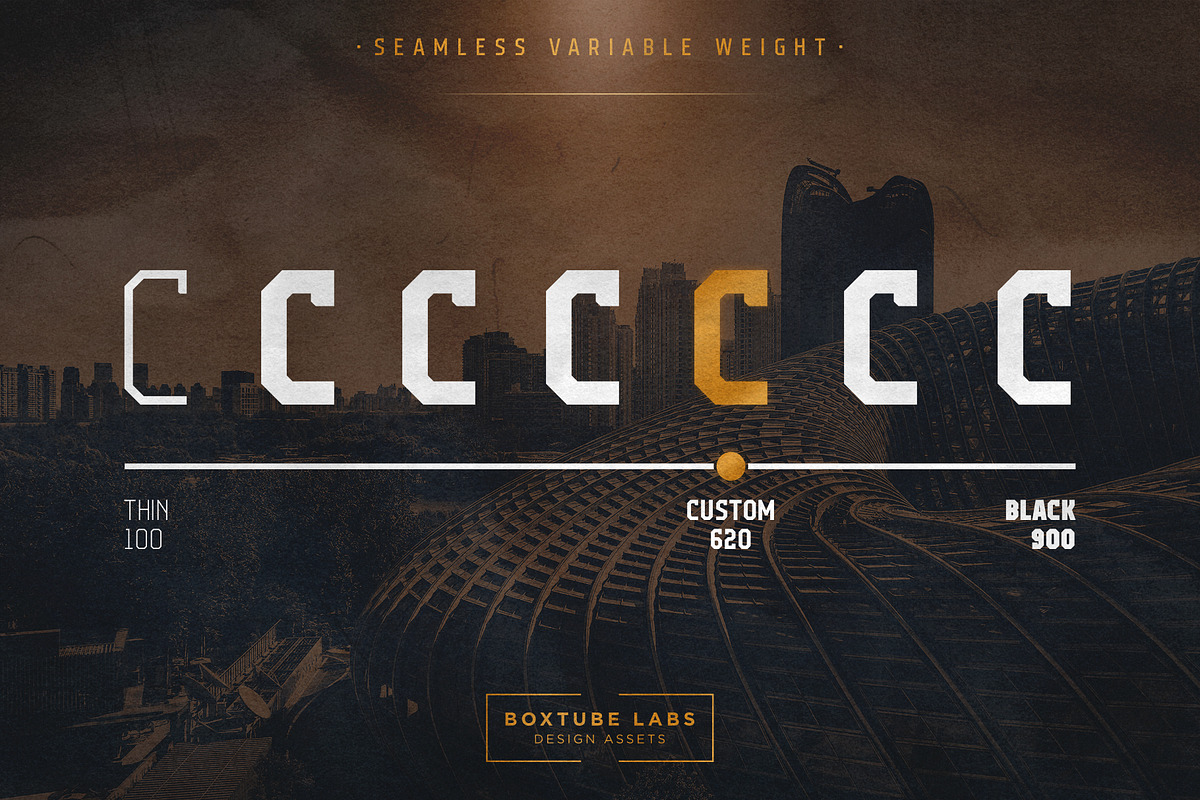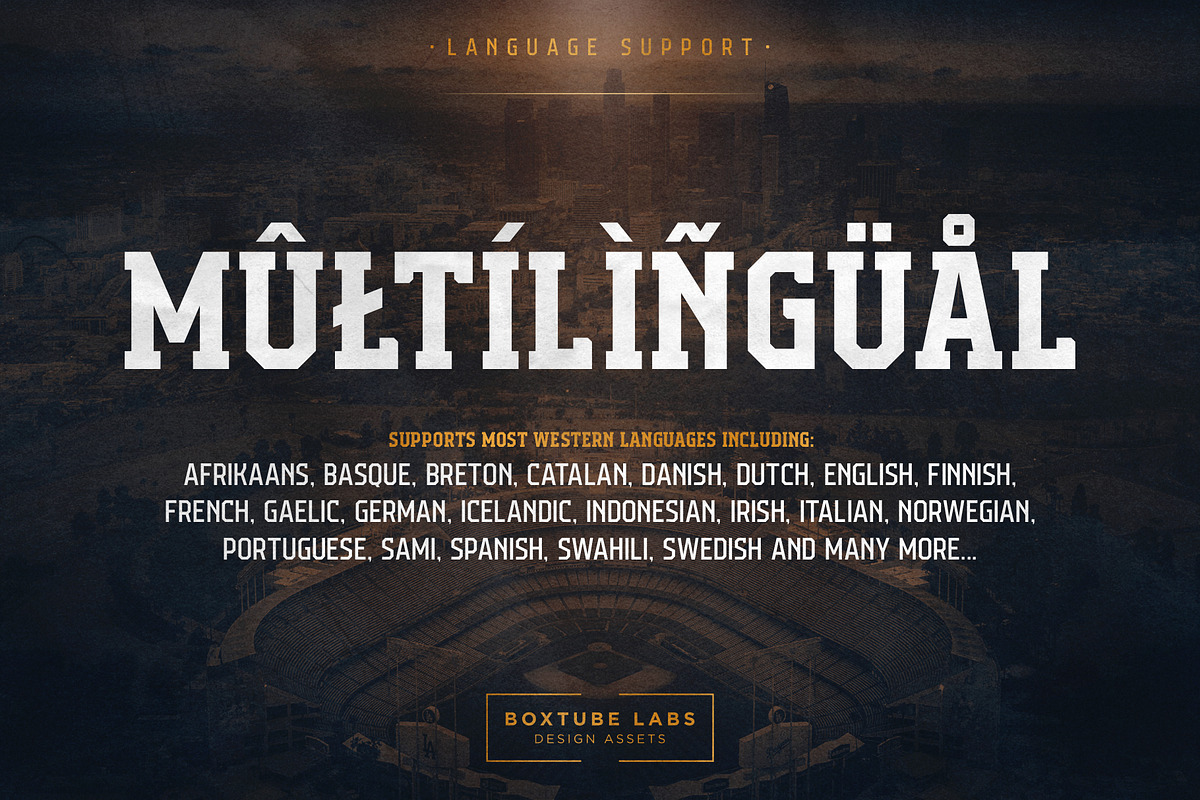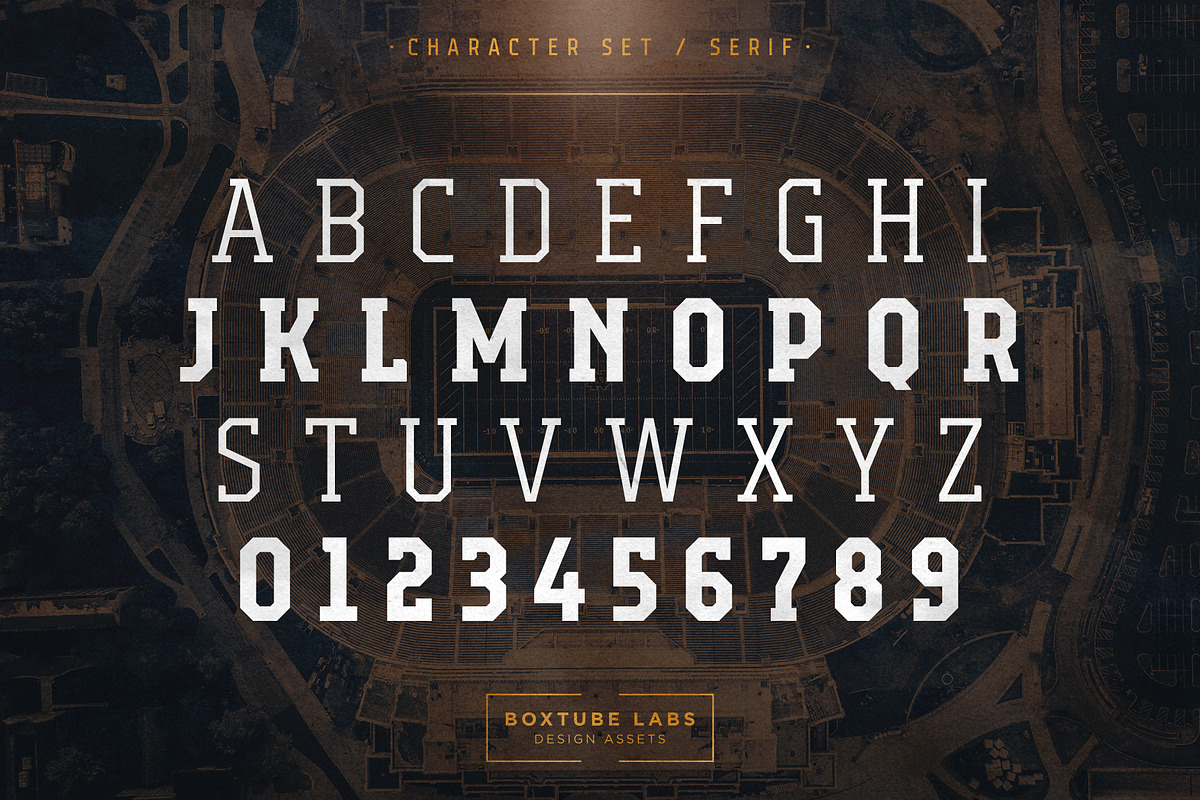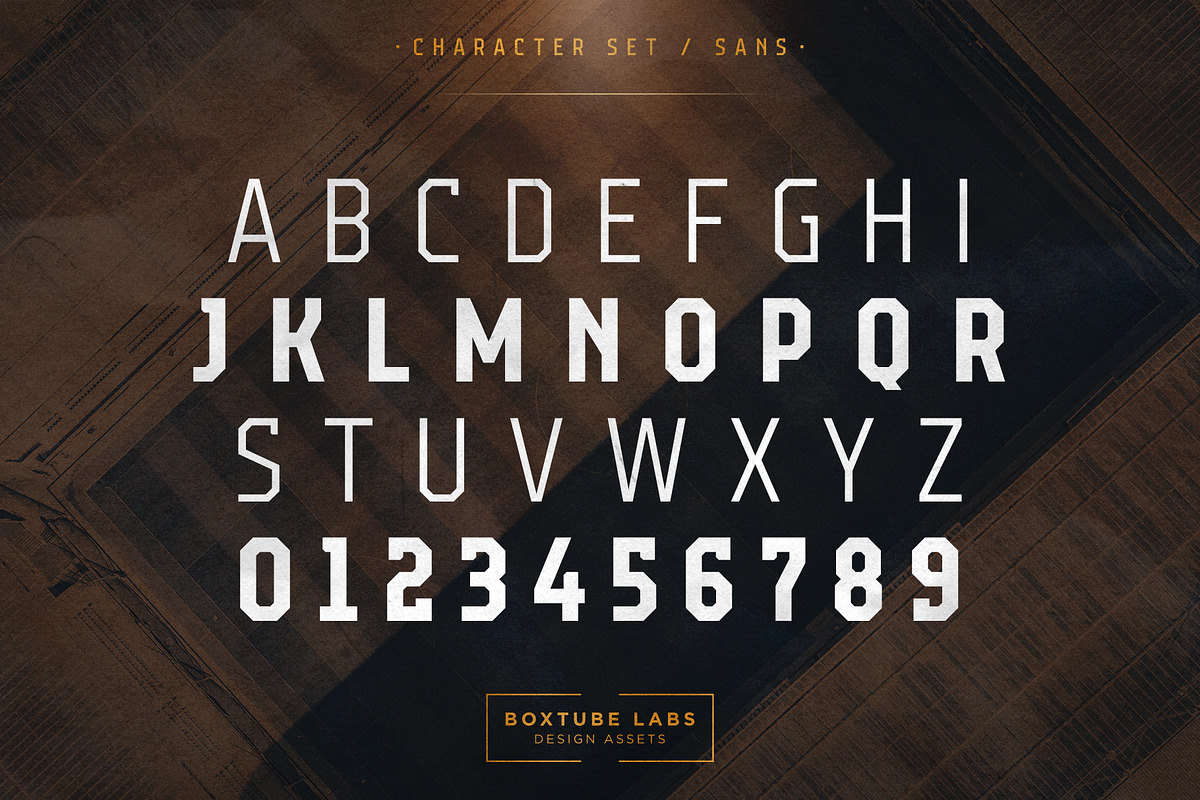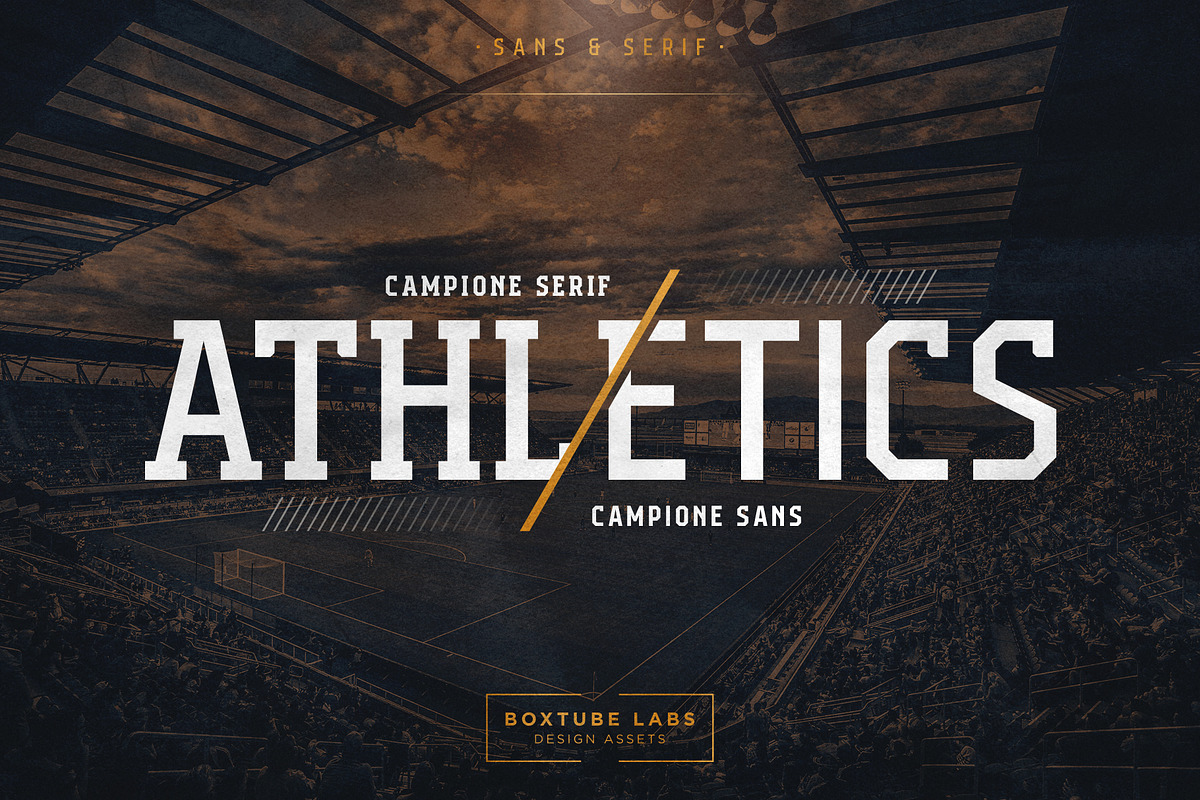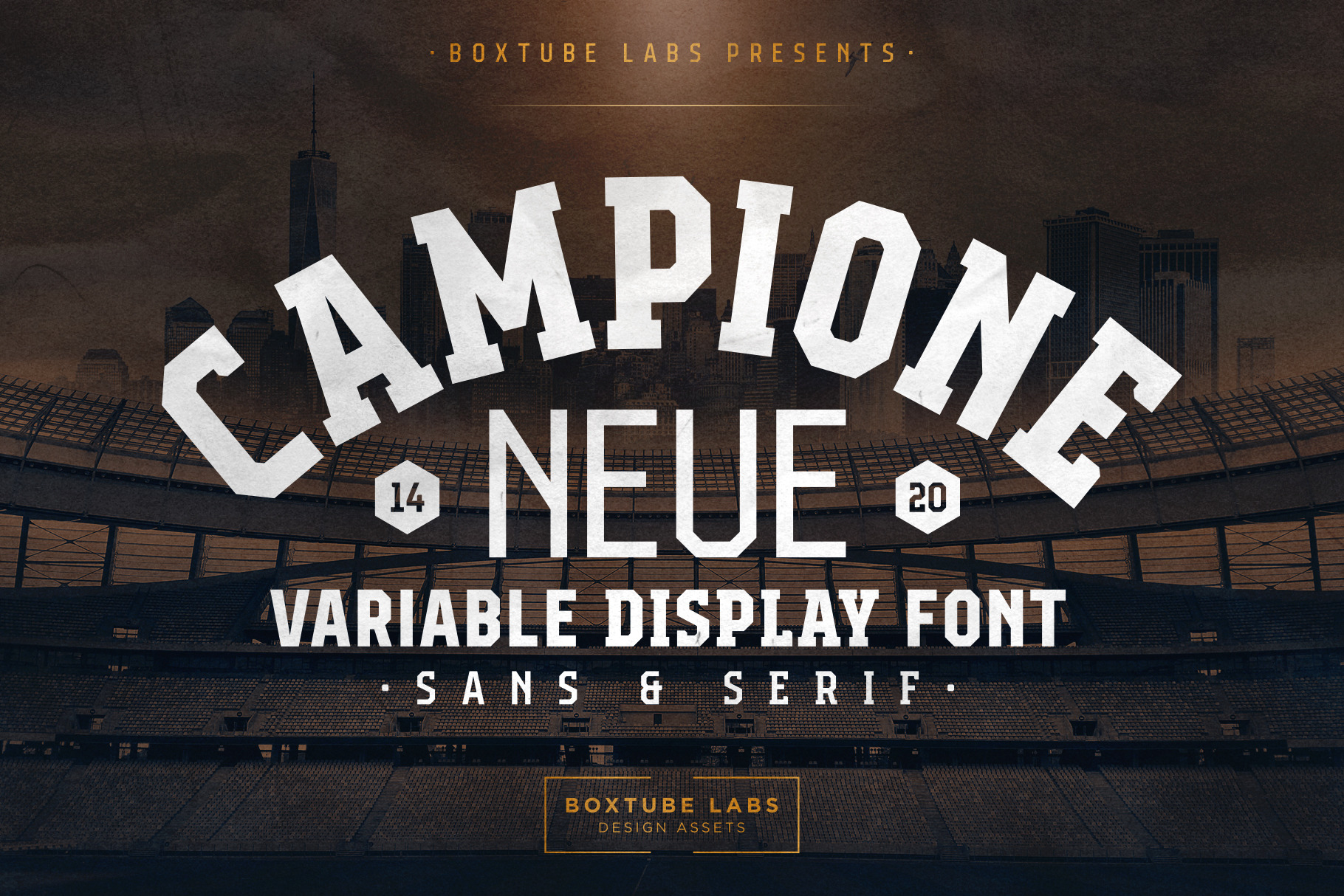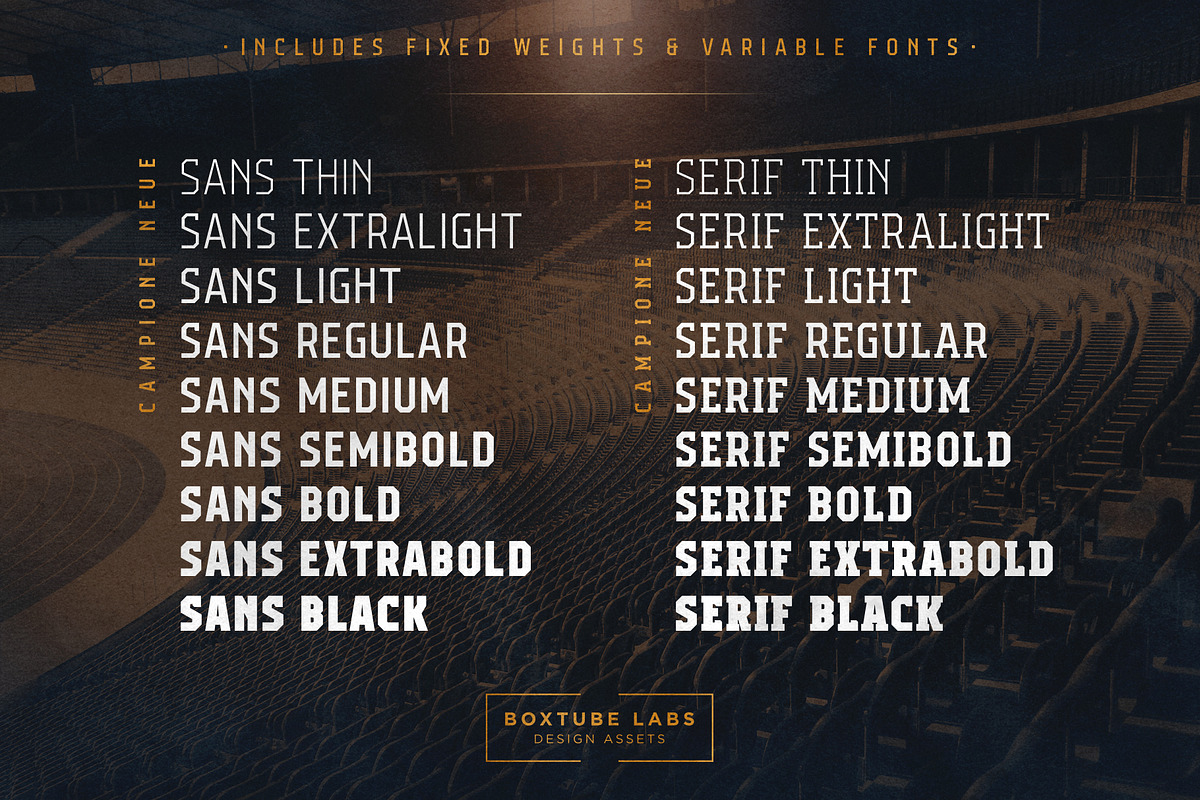
Campione Neue - Display Font
Campione Neue is a variable block font spanning from Thin to Black. Variable fonts can be used in Adobe Photoshop and Adobe Illustrator and other applications that supports this feature and it makes the process of designing more flexible and easy. For those who prefer fixed weight fonts we've included nine weights for each style in the package.
Campione Neue was designed to be a true work horse. It's powerful and versatile thanks to it's two styles; Sans & Serif. It's perfect for logotypes, sports branding, social media edits, posters, apparel design, magazine headlines, labels and so much more.
Campione Neue comes with a character set supporting most western languages including: Afrikaans, Basque, Breton, Catalan, Danish, Dutch, English, Finnish, French, Gaelic, German, Icelandic, Indonesian, Irish, Italian, Norwegian, Portuguese, Sami, Spanish, Swahili, Swedish and many more...